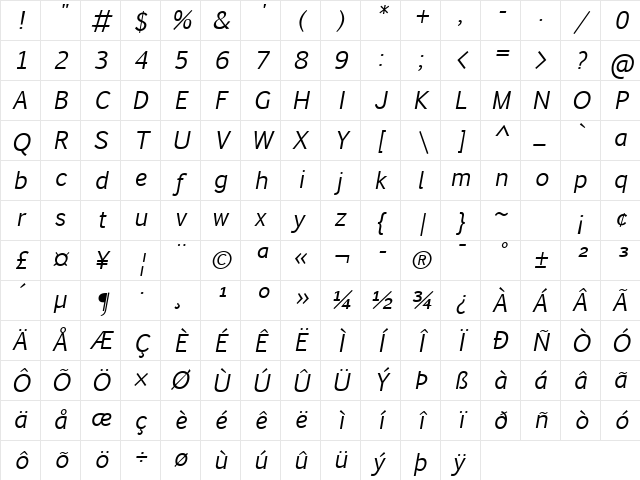
Complete Euphemia UCAS Italic glyph index. Displaying only characters natively supported by Euphemia UCAS Italic font.
Euphemia UCAS is a composed and adaptable typeface that performs quietly and consistently across a wide range of design contexts. The slanted form adds forward momentum and visual energy.
Pro Tip: Use Euphemia UCAS for emphasis, pull quotes, and subheadings where its slanted energy can add rhythm to the layout.